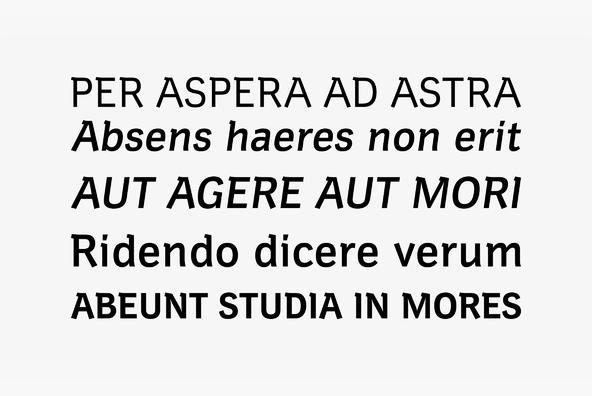
Hermes DTC
Both Hermes DTC and Imperial DTC font families are strongly influenced by Schnebel's work on Latin characters to fit Japanese Kanjis. DTC Hermes is well-suited for office documents, looking good on screens as well as printed.